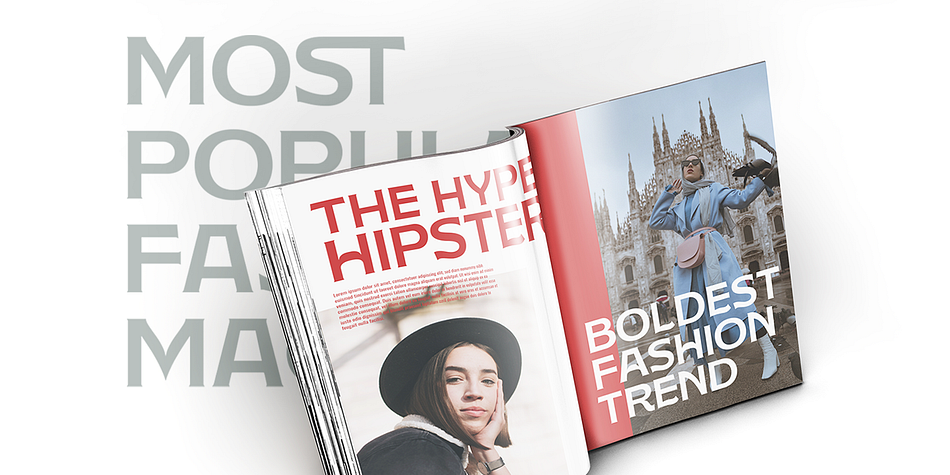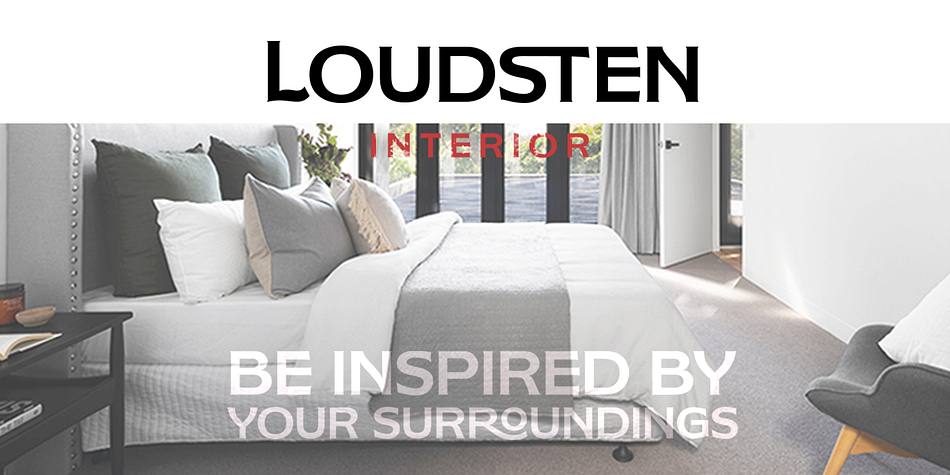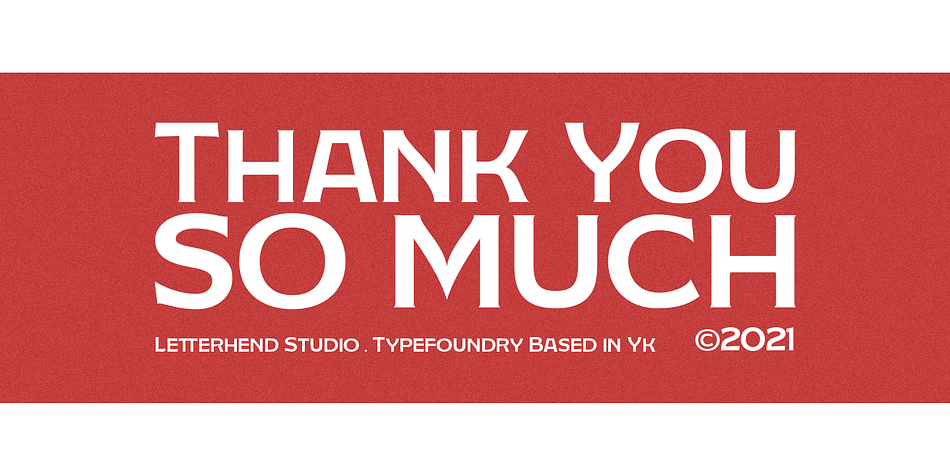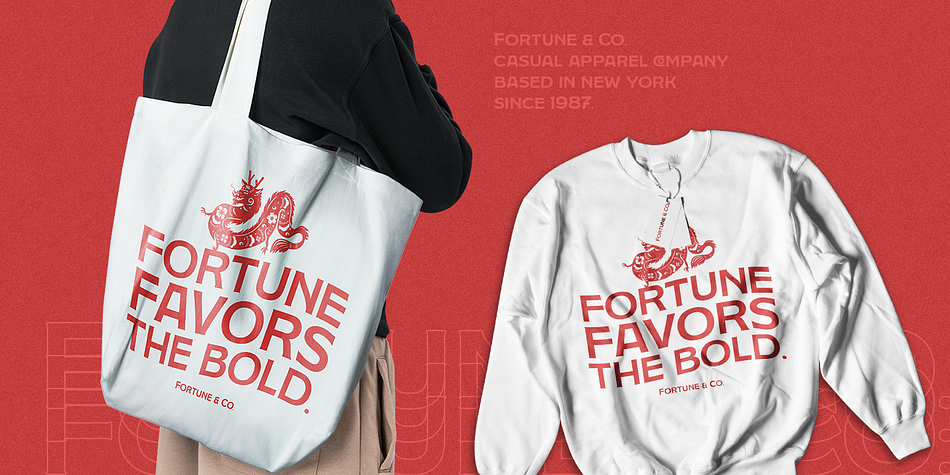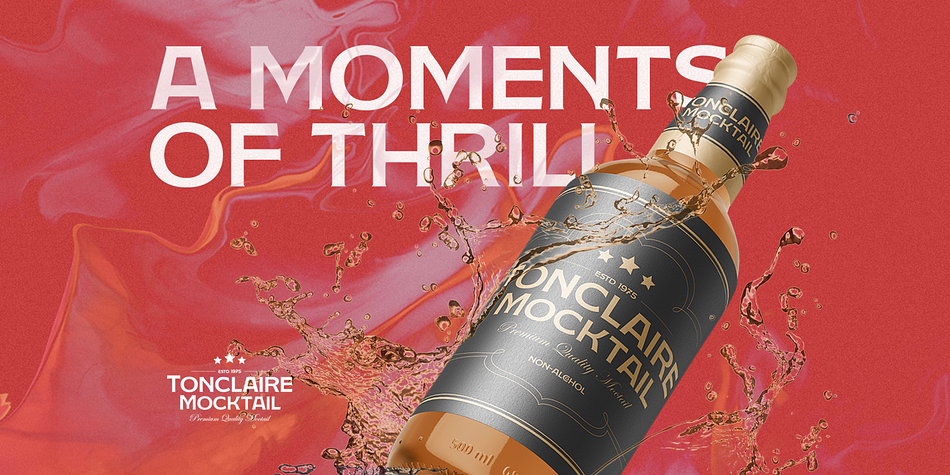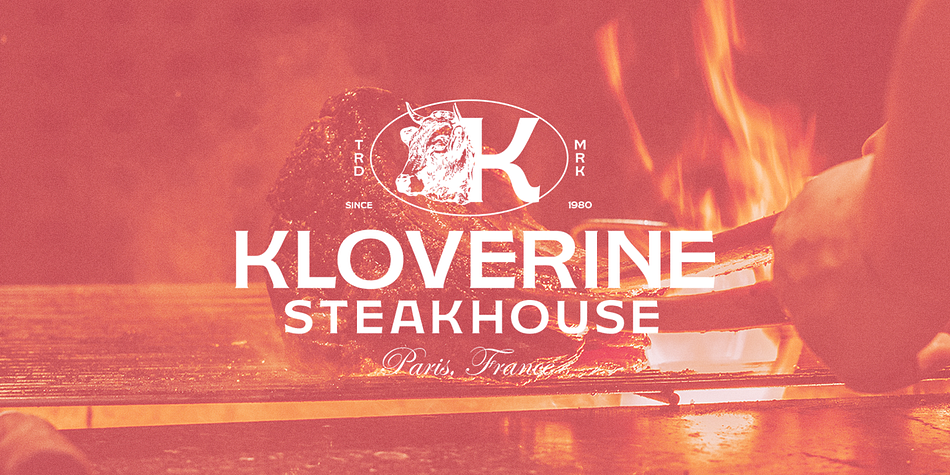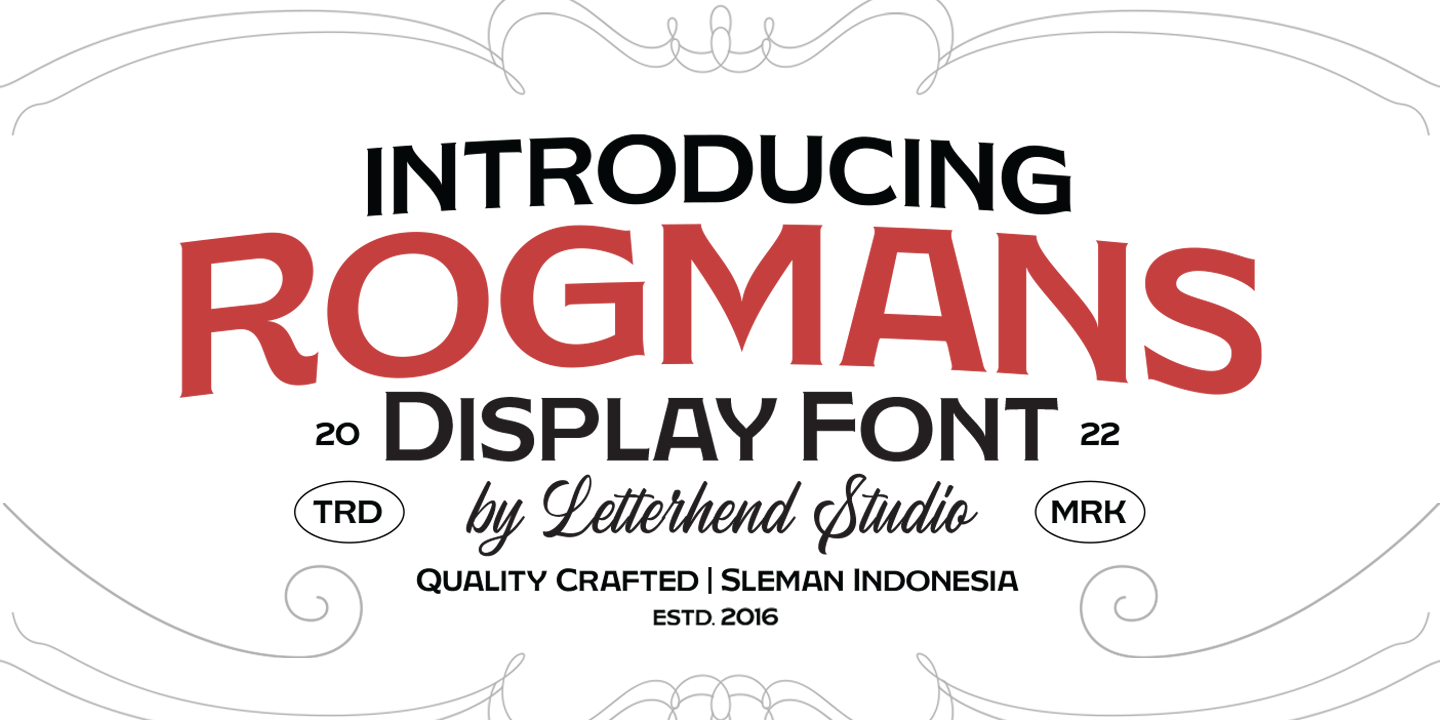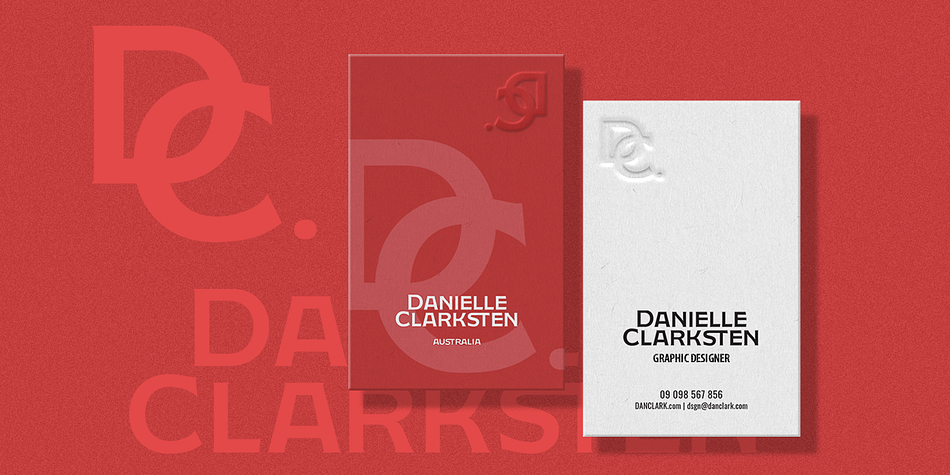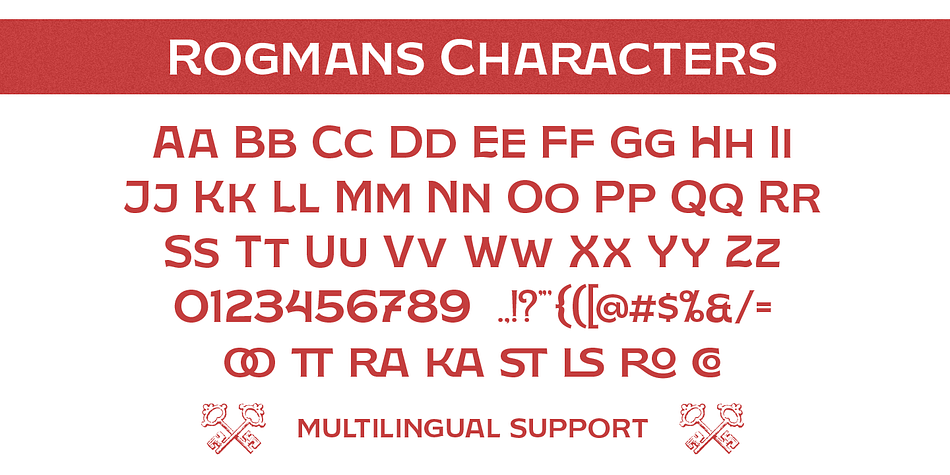
Designed by Hendry Juanda, Rogmans is a display sans font family published by Letterhend Studio.
Rogmans is a display font which looks great for modern theme but still has classy feel. Very suitable for for headline, logotype, apparel, invitation, branding, packaging, advertising etc with old school / vintage as well as modern theme. It comes in uppercase, lowercase, punctuations, symbols & numerals, stylistic set alternate, ligatures, etc also support multilingual and already PUA encoded.
- uppercase and lowercase
- alternates and ligatures